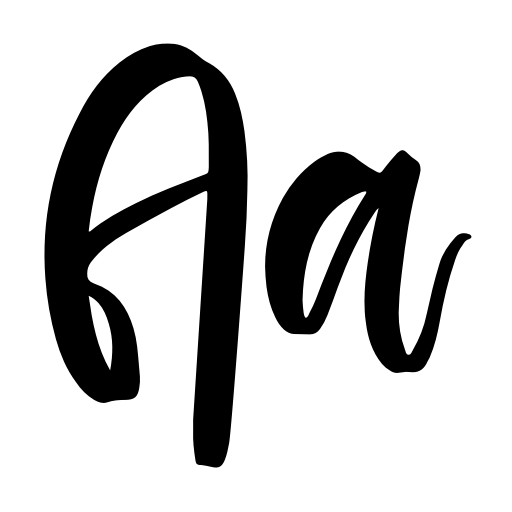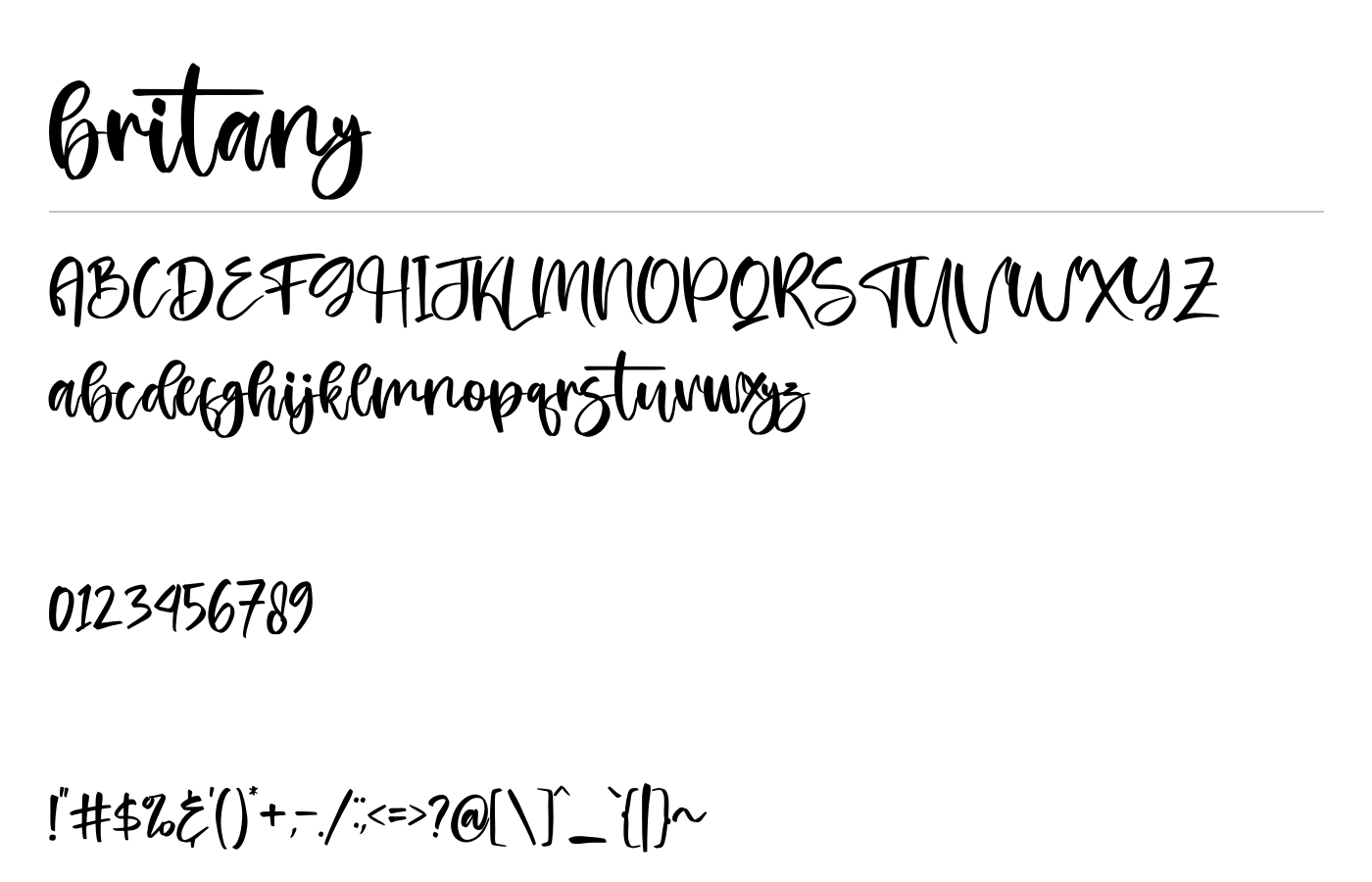
Britany is a lively and expressive script font with a hand-drawn, casual feel that features smooth, flowing letterforms and moderate stroke contrast. Its playful, slightly irregular shapes give it a friendly and approachable personality, making it ideal for creative branding, invitations, and stylish headlines that want to convey warmth and originality. This font works best where a personal, handwritten touch is desired to add charm and character.
britany Font